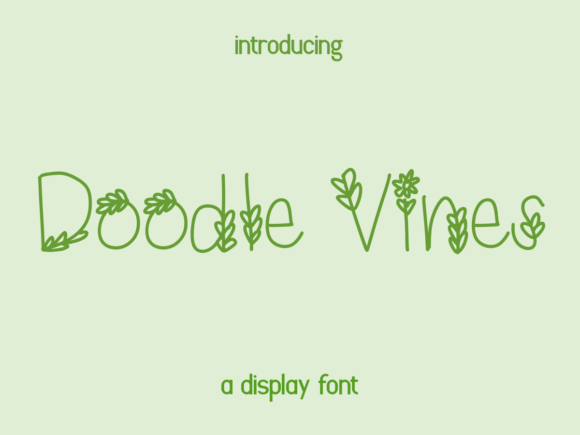
Doodle Vines: A Joyful Botanical Display Font for Creative Projects
Fonts play a crucial role in visual communication, shaping how messages are perceived and experienced. Among the many font styles available today, Doodle Vines stands out as a unique and expressive choice for those who want to add a touch of nature and whimsy to their designs. With its dainty, hand-drawn appearance and botanical-inspired elements, Doodle Vines is more than just a decorative typefaceâit's an artistic tool that can elevate creative projects across various industries.
What Makes Doodle Vines Special?
Doodle Vines is a display font characterized by its organic, vine-like connections between letters. The design mimics natural growth patterns, making it feel alive and spontaneous. Each character appears as if drawn with a pen or brush, capturing the essence of doodling while maintaining legibility and charm. This combination of artistry and functionality makes it ideal for use in contexts where personality and creativity matter most.
Key Features of Doodle Vines
- Hand-Drawn Style: Offers a personal and authentic look thatâs perfect for handmade or artisanal branding.
- Botanical Elements: Includes subtle leaf motifs and curving lines that evoke the beauty of plants and nature.
- High Legibility: Despite its playful style, the font remains readable at larger sizes, especially when used in short text or headings.
- Variety of Characters: Comes with multiple alternate glyphs and ligatures, giving designers flexibility in crafting unique visuals.
- Compatibility: Works well with both digital and print media, supporting a broad range of languages and special characters.
Purpose and Use Cases for Doodle Vines
The purpose of Doodle Vines extends beyond mere aesthetics. It serves as a versatile font for creative professionals and hobbyists alike who want to infuse warmth and originality into their work. Its botanical theme makes it particularly suitable for designs centered around nature, wellness, gardening, or anything with a âhandmadeâ vibe.
Where Can You Use Doodle Vines?
- Graphic Design: Ideal for posters, invitations, greeting cards, and social media graphics that require a soft, artistic flair.
- Web Design: Perfect for website headers, blog titles, or any section where a decorative yet readable font is needed.
- Branding and Packaging: Adds a distinctive touch to logos, labels, and product packagingâespecially for eco-friendly or lifestyle brands.
- Crafting and DIY: Great for scrapbooking, stencils, embroidery, and other tactile crafts where typography plays a key role.
- Print Media: Enhances book covers, magazine layouts, calendars, and event programs with a lively, natural aesthetic.
Who Benefits from Using Doodle Vines?
Doodle Vines appeals to a wide audience due to its adaptability and charm. Here are some groups that may find this font particularly useful:
- Designers and Artists: Those looking to add a handcrafted feel to their work without compromising on style.
- Business Owners: Entrepreneurs in niches like floral shops, wellness studios, or eco-conscious startups seeking to stand out visually.
- Content Creators: Bloggers, YouTubers, and Instagrammers who value a cohesive, engaging visual identity.
- Event Planners: Professionals creating invitations, signage, or decor for weddings, parties, and botanical-themed events.
- Teachers and Educators: For educational materials, classroom decorations, or craft activities involving children.
Real-World Applications of Doodle Vines
Letâs explore some practical examples of how Doodle Vines has been used in real-world scenarios:
- Wedding Invitations: A couple used Doodle Vines for their wedding suite, incorporating vines and leaves to match their garden-themed event.
- Plant-Based Branding: A skincare company adopted the font for their logo and packaging to reflect their commitment to natural ingredients.
- Childrenâs Books: An author paired Doodle Vines with illustrated characters to create a playful and inviting atmosphere.
- Instagram Posts: A fitness influencer uses the font in her wellness captions to maintain a calming and approachable tone.
- Stationery Collections: A stationery brand integrates Doodle Vines into custom note cards and planners for a hand-crafted, nature-inspired look.
Strengths and Limitations of Doodle Vines
Like any font, Doodle Vines has its own set of strengths and limitations. Understanding these can help you decide whether it fits your project needs.
Strengths
- Unique Visual Appeal: Its natural, doodle-style gives it a distinct edge over generic fonts.
- Emotional Resonance: Conveys warmth, joy, and creativityâperfect for building a connection with your audience.
- Customization Options: Alternate glyphs and ligatures allow for personalized typographic expressions.
- Multi-Purpose: Suits both casual and professional settings when used appropriately.
Limitations and Considerations
- Not Suitable for Long Text: Because itâs a display font, using it in body copy could reduce readability.
- May Not Be Formal Enough: Avoid using it in formal documents or legal contexts where clarity and professionalism are essential.
- Requires Proper Pairing: To balance its playful nature, pair it with a clean, sans-serif or serif font for contrast in layouts.
- Color and Background Sensitivity: The delicate strokes might not show up well on certain color combinations or busy backgrounds.
How to Evaluate Whether Doodle Vines Is Right for Your Project
Choosing the right font involves more than just picking something that looks nice. Here are some questions to consider before deciding to use Doodle Vines:
- Do I need a font that feels warm, personal, and artistic?
- Is my project related to nature, wellness, or creativity?
- Will the font be used primarily in headlines, logos, or short phrases rather than long paragraphs?
- Am I okay with a font that requires careful pairing to maintain visual harmony?
- Does the hand-drawn style align with the overall tone and message of my content?
If you answered yes to most of these, Doodle Vines could be a great fit. If not, consider exploring similar botanical or script fonts that better suit your goals.
Getting Started with Doodle Vines
Once youâve decided to incorporate Doodle Vines into your project, here are some tips to help you get the most out of it:
- Test Different Sizes: Experiment with scaling the font to see how it performs in different contextsâespecially in print.
- Use Contrast: Combine it with a complementary font to highlight important text without overwhelming the reader.
- Explore Alternates: Many display fonts include stylistic variations. Check if Doodle Vines offers alternative characters to enhance your design.
- Consider Color: Lighter shades or pastel tones often work best to emphasize the delicate nature of the font.
- Review Licensing: Ensure you understand the fontâs usage rights, especially if youâre planning to use it commercially or distribute it online.
Common Mistakes to Avoid
While Doodle Vines is easy to love, there are a few common mistakes that users tend to make:
- Overusing the Font: Applying it to every element in a design can dilute its impact and reduce visual clarity.
- Ignoring Readability: Choosing a size too small for body text or using it in low-contrast situations can make reading difficult.
- Mismatched Styles: Combining it with overly bold or modern fonts may clash, leading to an unbalanced layout.
- Forgetting Context: Using it inappropriatelyâfor example, in financial reports or legal formsâcan undermine the professionalism of your content.
Practical Expectations When Using Doodle Vines
Understanding what to expect from Doodle Vines will help you use it effectively and avoid frustration. Here are some realistic expectations:
- You can expect a visually appealing result that adds character and charm to your designs.
- You should expect to spend time fine-tuning the layout to ensure the font works harmoniously with other elements.
- You might expect to receive positive feedback from audiences who appreciate creative and organic aesthetics.
- You may encounter challenges when using it in multilingual projects, depending on the fontâs language support.
- Youâll likely find it more suited for digital formats than large-scale printing unless you adjust spacing and sizing carefully.
Why Doodle Vines Stands Out in the World of Display Fonts
In a market flooded with sleek, minimalist fonts, Doodle Vines brings back the joy of hand-lettering and the soothing presence of nature. Its ability to convey both creativity and elegance makes it a standout option for anyone aiming to break away from the ordinary. Whether you're designing a boutique label, creating a seasonal postcard, or simply adding a signature touch to your next creative project, Doodle Vines offers a fresh perspective that blends form and function seamlessly.
A Word About Accessibility
Itâs important to remember that accessibility shouldnât be overlooked when choosing a font. While Doodle Vines is beautiful, its ornate style may not be accessible to all readers. Always consider providing an accessible alternative for screen readers or users with visual impairments. You can also use it selectivelyâreserving it for decorative elements while relying on more standard fonts for critical information.
Final Thoughts on Doodle Vines
Doodle Vines is more than just a font; itâs a design statement. By combining the spontaneity of doodling with the structure of typography, it allows creators to express themselves in a way that feels both personal and professional. As with any creative tool, its success depends on thoughtful application and alignment with your projectâs goals. Used correctly, Doodle Vines can transform a simple message into an experience filled with warmth, life, and visual delight.
If you're looking to inject a bit of botanical beauty into your next design, take a closer look at Doodle Vines. It might just be the spark your project needs to stand outâand connect more deeply with your audience.